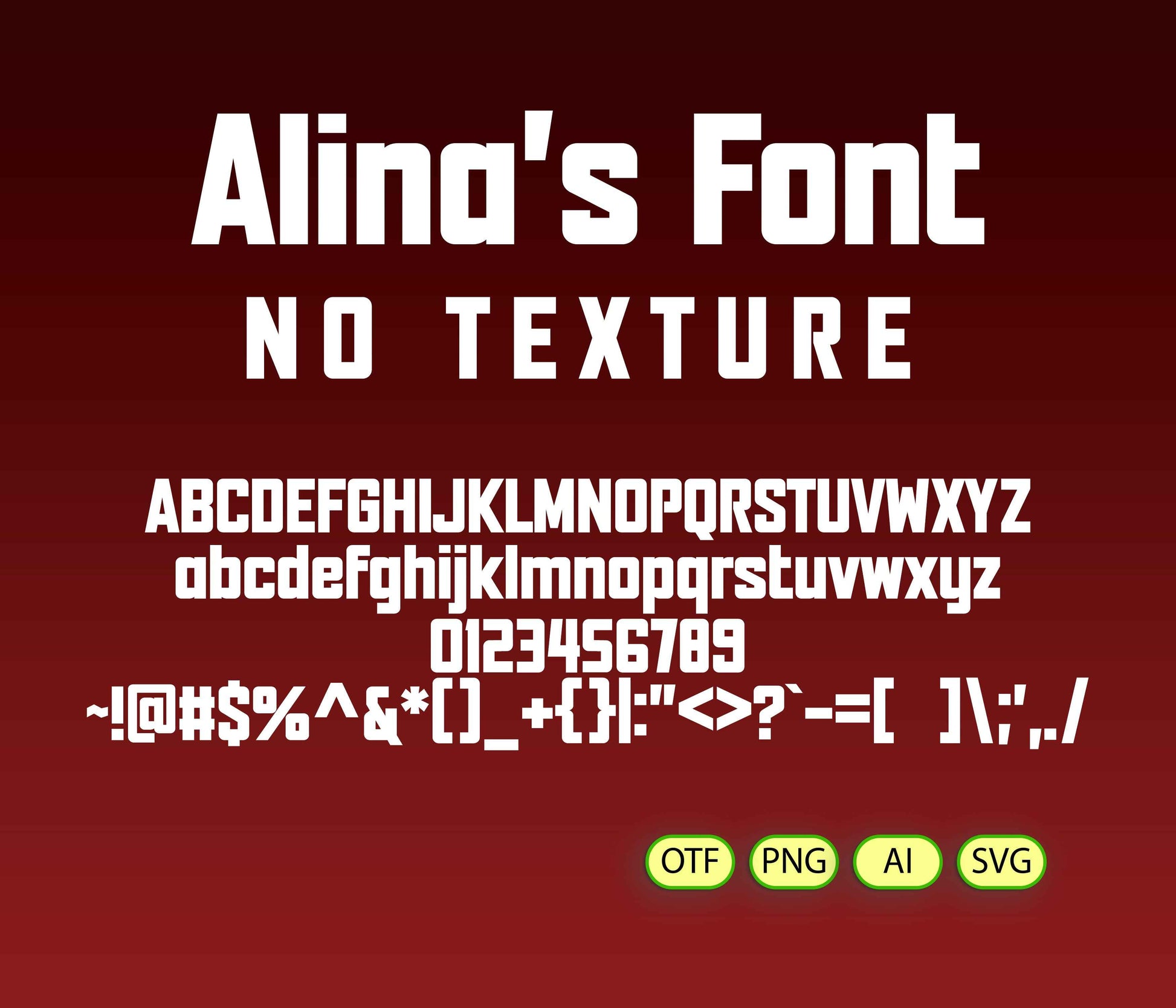
Apocalyptic Road Warrior Font
Dive into the gritty, high-octane world of a dystopian wasteland with our specially crafted font. This typeface captures the essence of the intense action film series known for its fierce female protagonist and adrenaline-pumping desert chases. Perfect for designers, event planners, and fans of post-apocalyptic aesthetics, this font brings the raw, rebellious spirit of the iconic franchise to your creative projects.
What font is the Apocalyptic Road Warrior font?
Envision a typeface that embodies the film's rugged style - bold, weathered, and unapologetically fierce. Our font features strong, distressed letterforms that mirror the series' aesthetic, complete with a touch of industrial grit. It includes a comprehensive character set with alphabets, numbers, and special symbols, offering a versatile solution for various design needs.
What You Can Do With Apocalyptic Road Warrior Textured Font
This versatile font is ideal for a range of creative applications:
- Movie-themed Events: Create striking invitations for film screenings or themed parties
- Fan Merchandise: Design eye-catching t-shirts, posters, and collectibles for enthusiasts
- Digital Content: Enhance websites, blogs, and social media with powerful headers and graphics
- Automotive Design: Add an edgy touch to designs for custom vehicles or auto events
- Event Decorations: Develop banners, signage, and props for post-apocalyptic themed events
- Book and Album Covers: Design covers for dystopian novels or rock albums
- Gaming Graphics: Use in designs for video games with similar themes
- Promotional Materials: Create impactful marketing materials for action movies or extreme sports events
- Cutting Machine Friendly: Includes a standard version perfect for use with cutting machines like Cricut
- Extensive Character Set: Offers a wide range of characters for complete design flexibility
The Apocalyptic Road Warrior font is more than just a typeface; it's a tribute to the high-octane film series that has redefined action cinema with its intense storytelling and unforgettable characters.